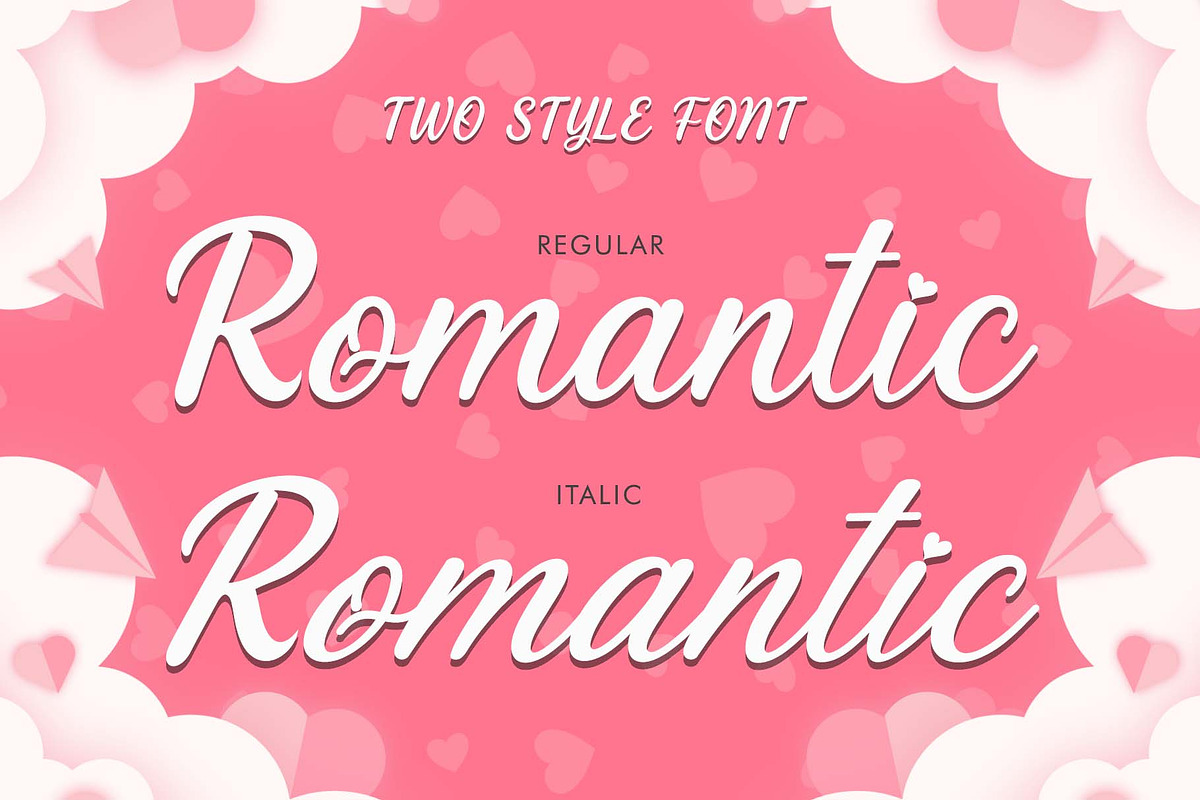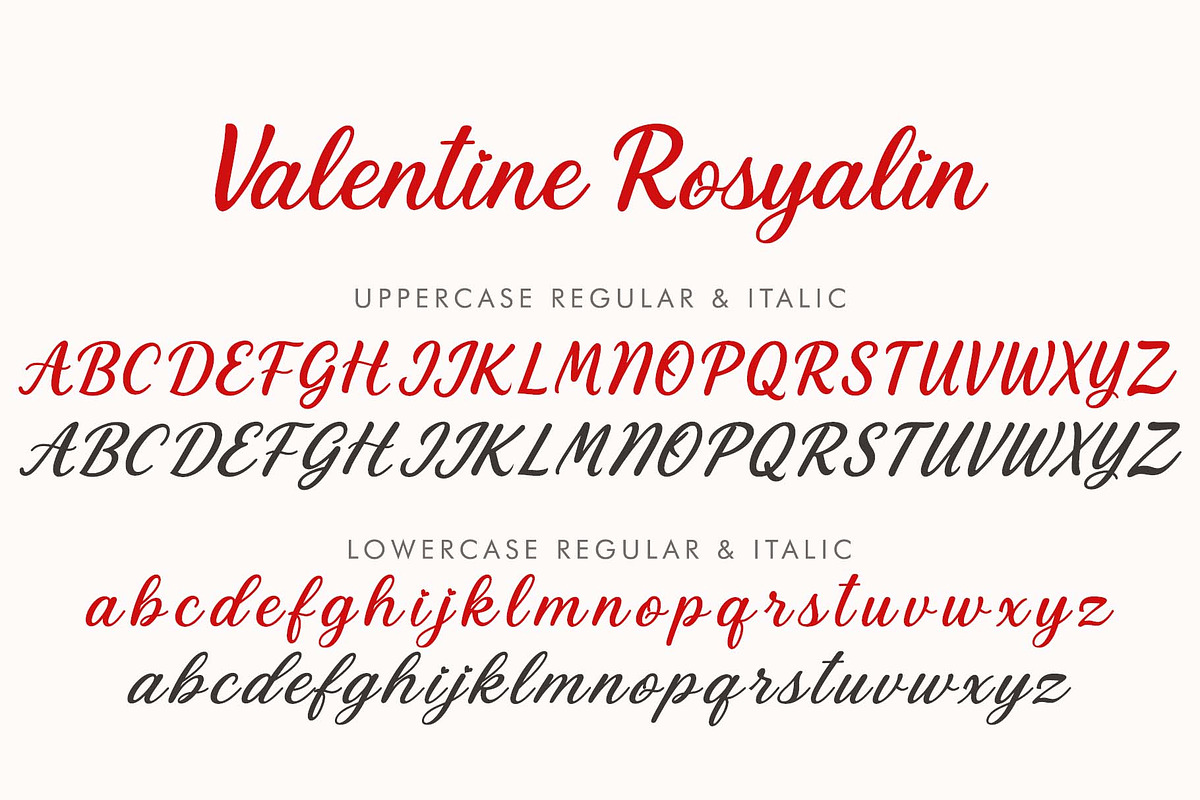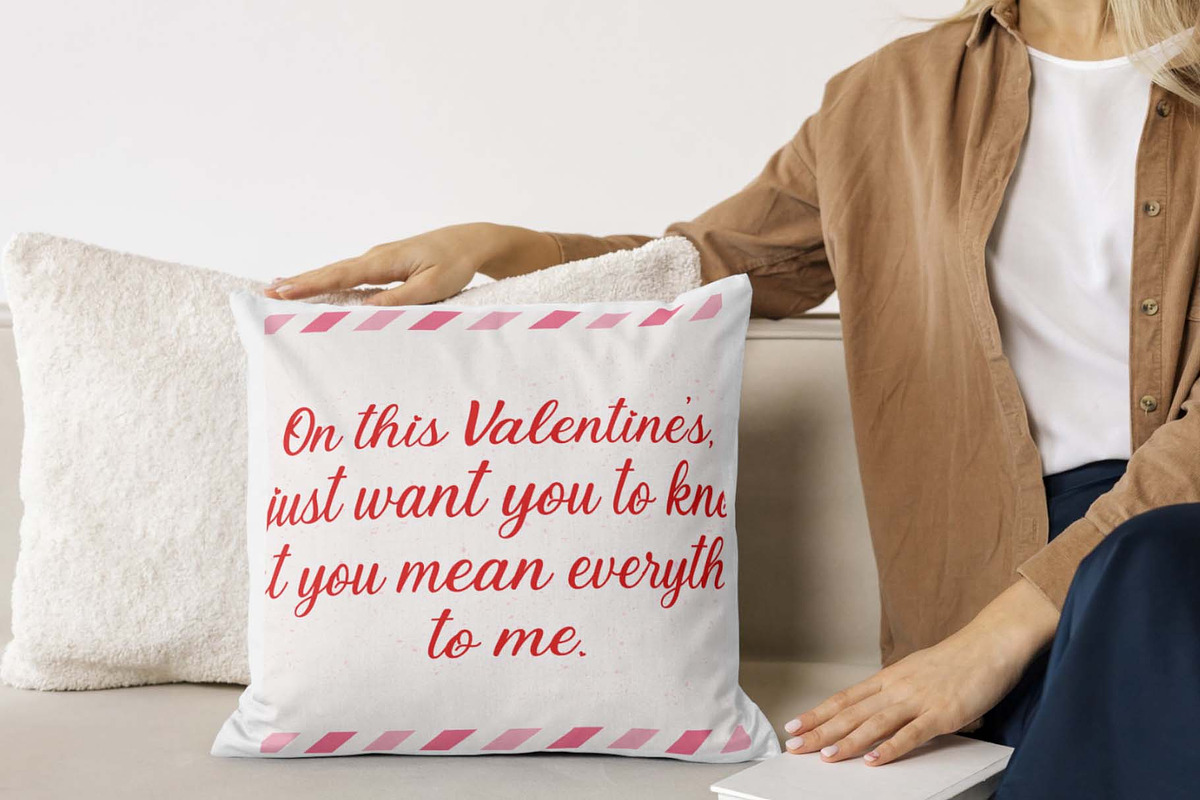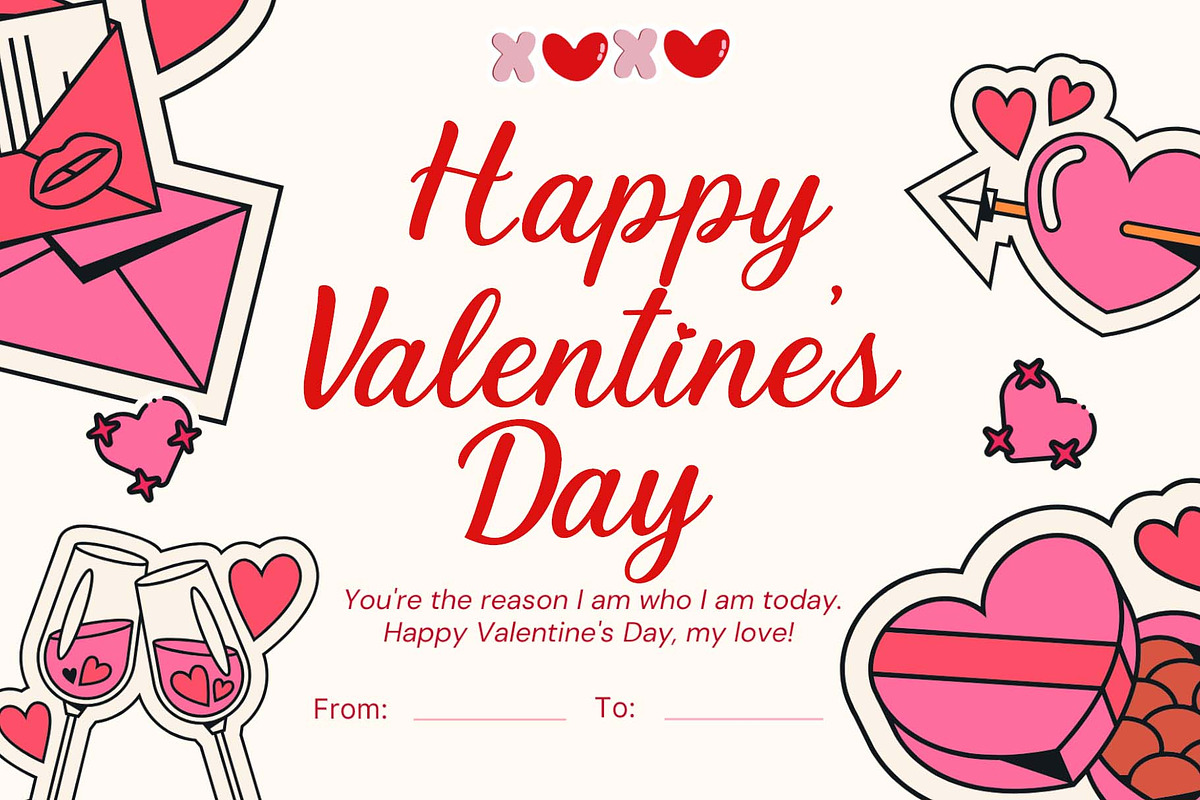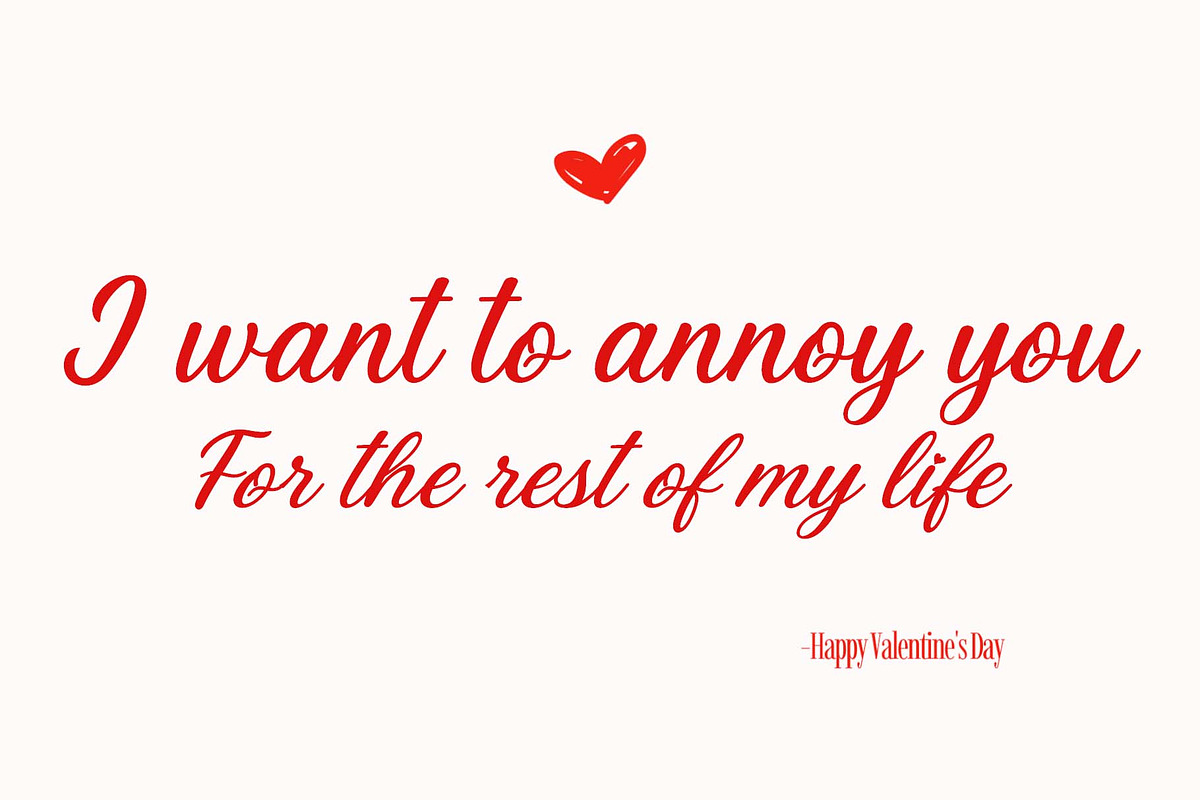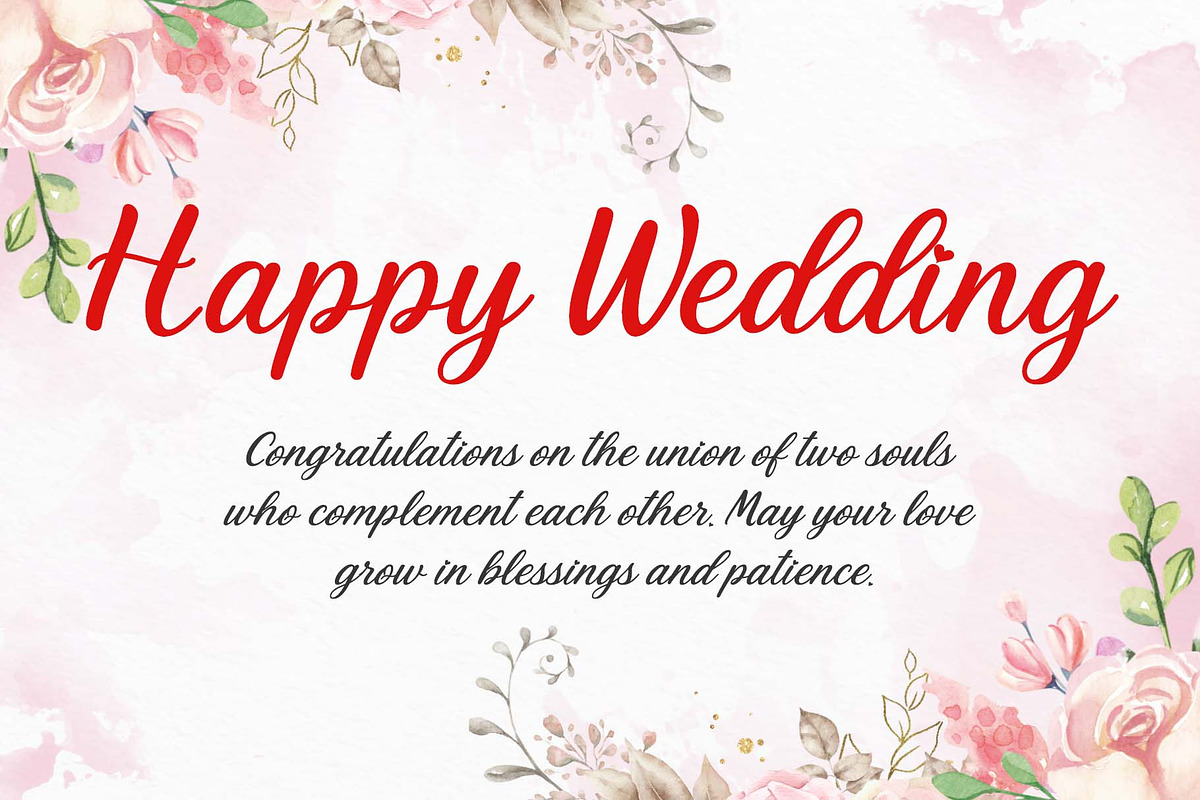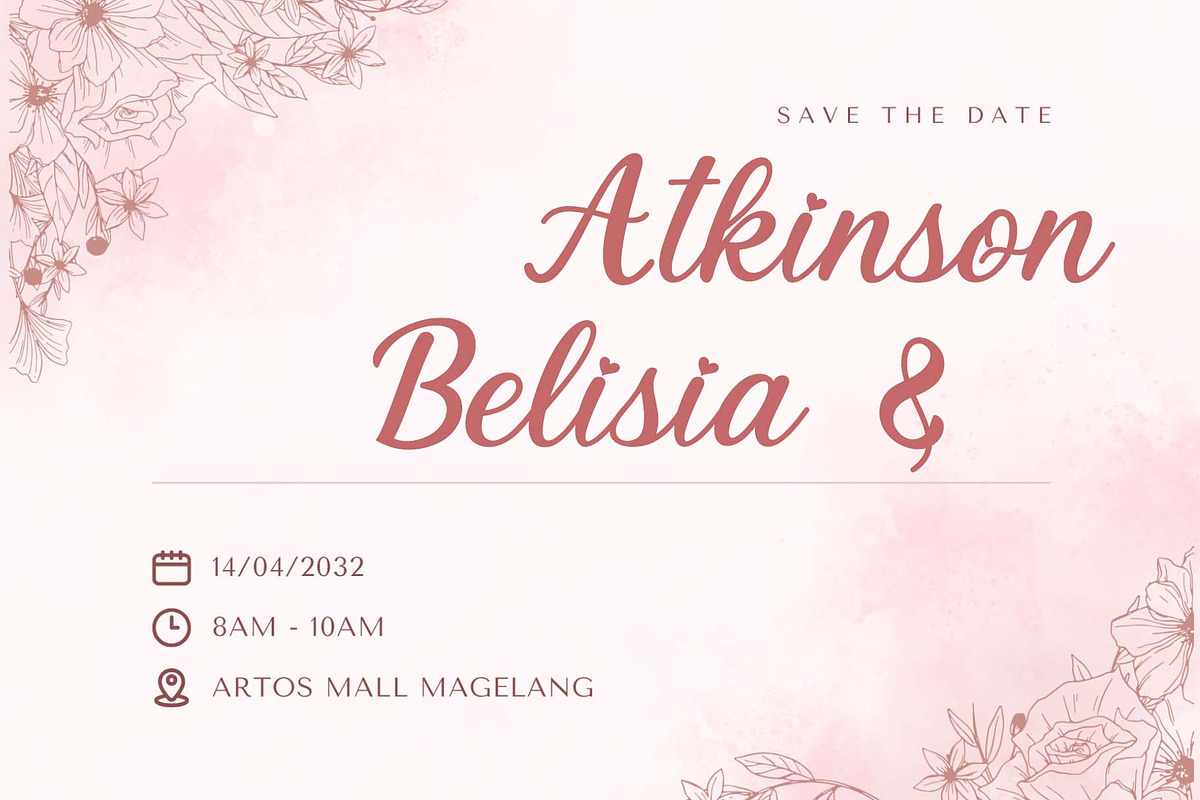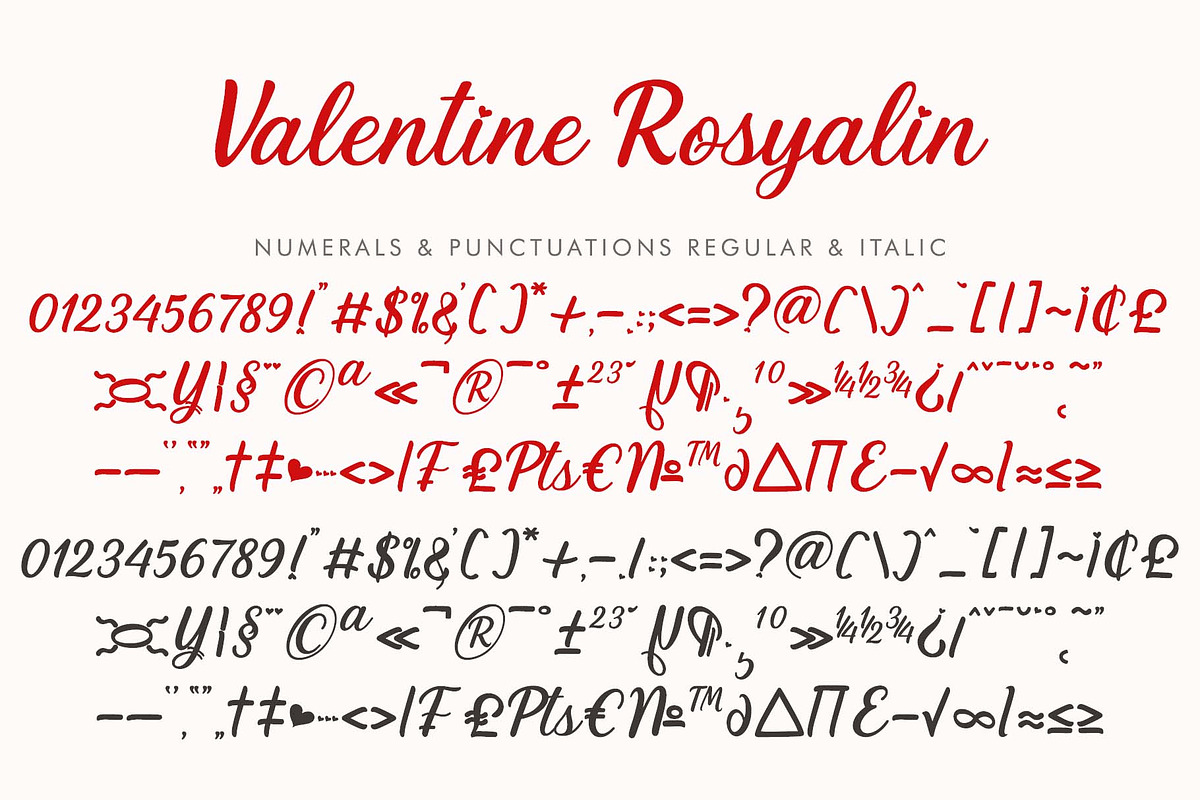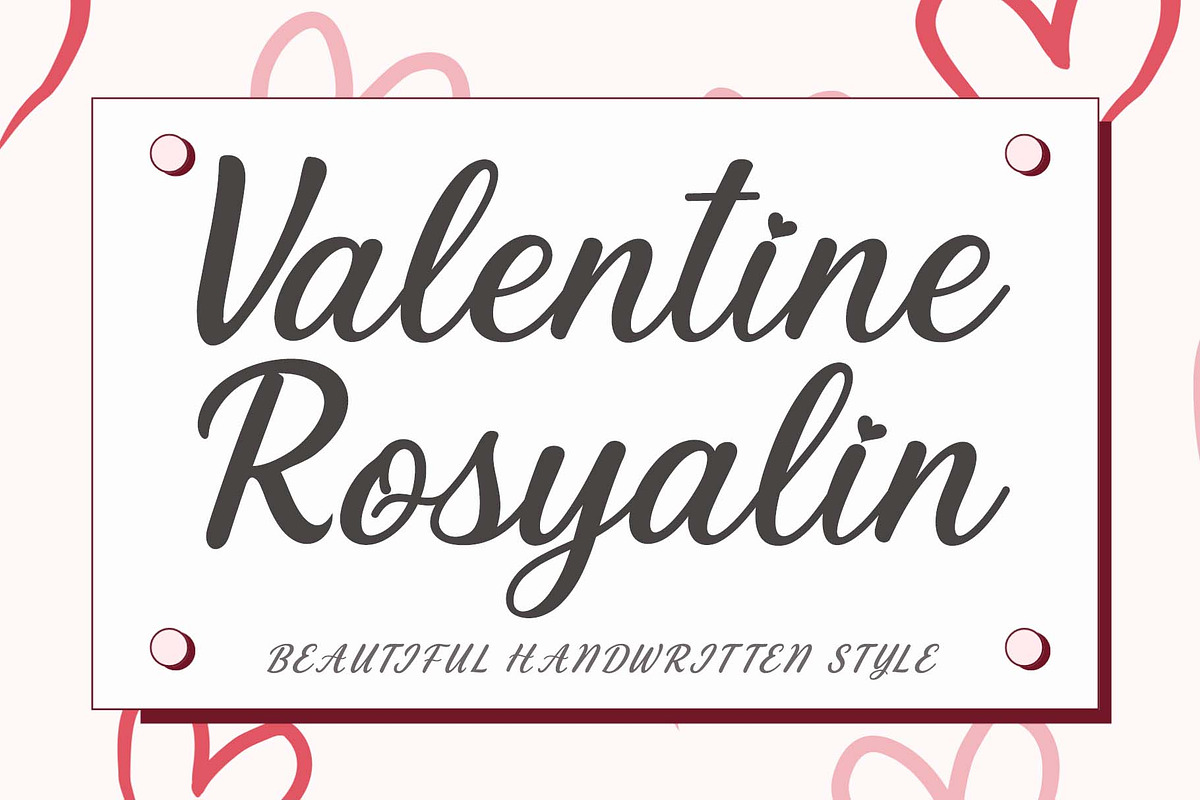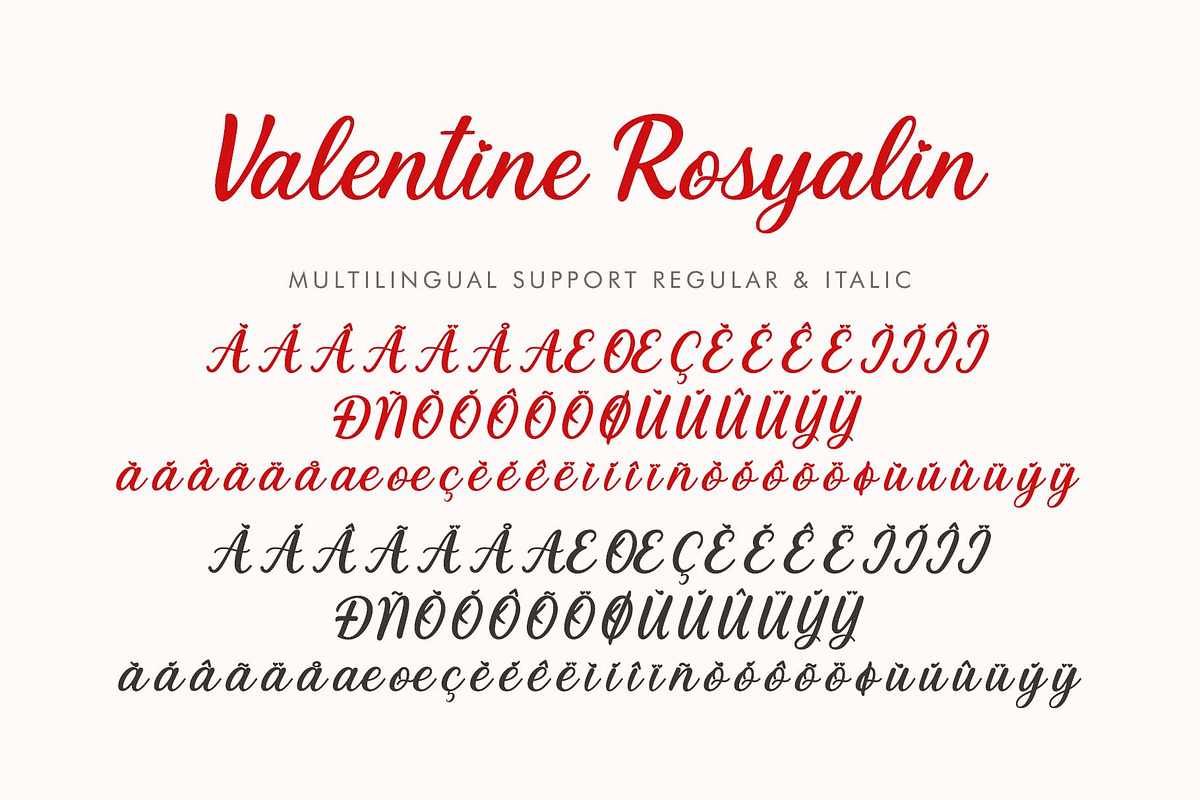
Valentine Rosyalin
"Valentine Rosyalin" is a beautiful and professional handwritten font. Available in regular and italic, it features uppercase and lowercase letters, numbers, punctuation, and multilingual support. It's perfect for Valentine's Day, greetings, invitations, weddings, photography, spring, Easter, business branding, social media, advertising, YouTube, and more.